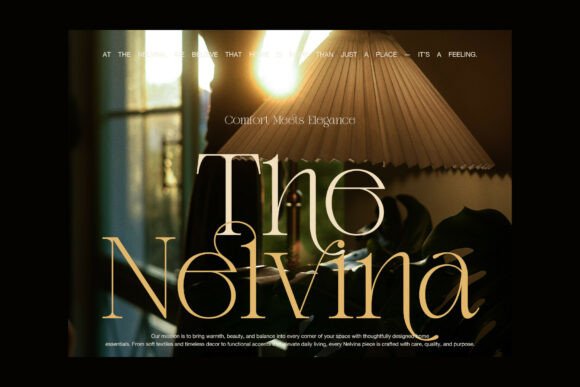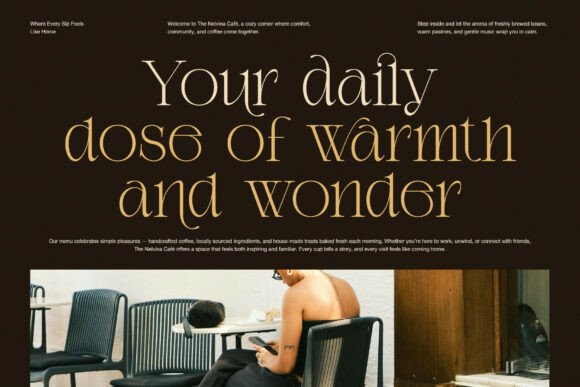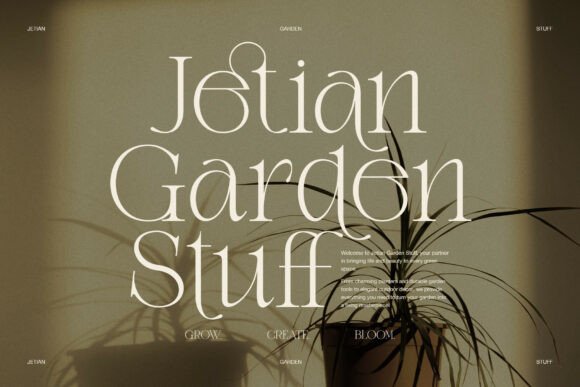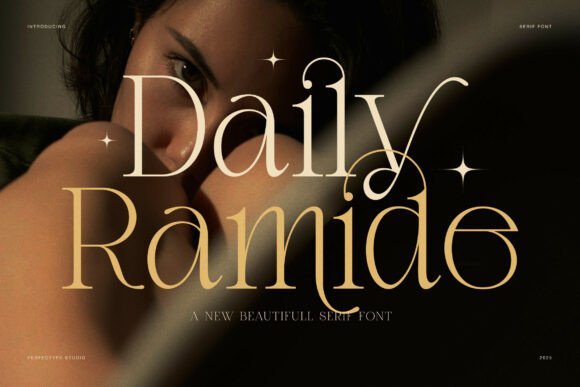
Introduction to Daily Ramide Font
Daily Ramideis a vintage elegant serif font designed to bring warmth, character, and refined beauty into modern design projects.
Inspired by classic editorial typography, Daily Ramideblends bold letterforms with soft curves and graceful details As a result, it delivers a timeless look while still feeling expressive and contemporary.
Key Features of Daily Ramide Font
Why Choose Daily Ramide Font?